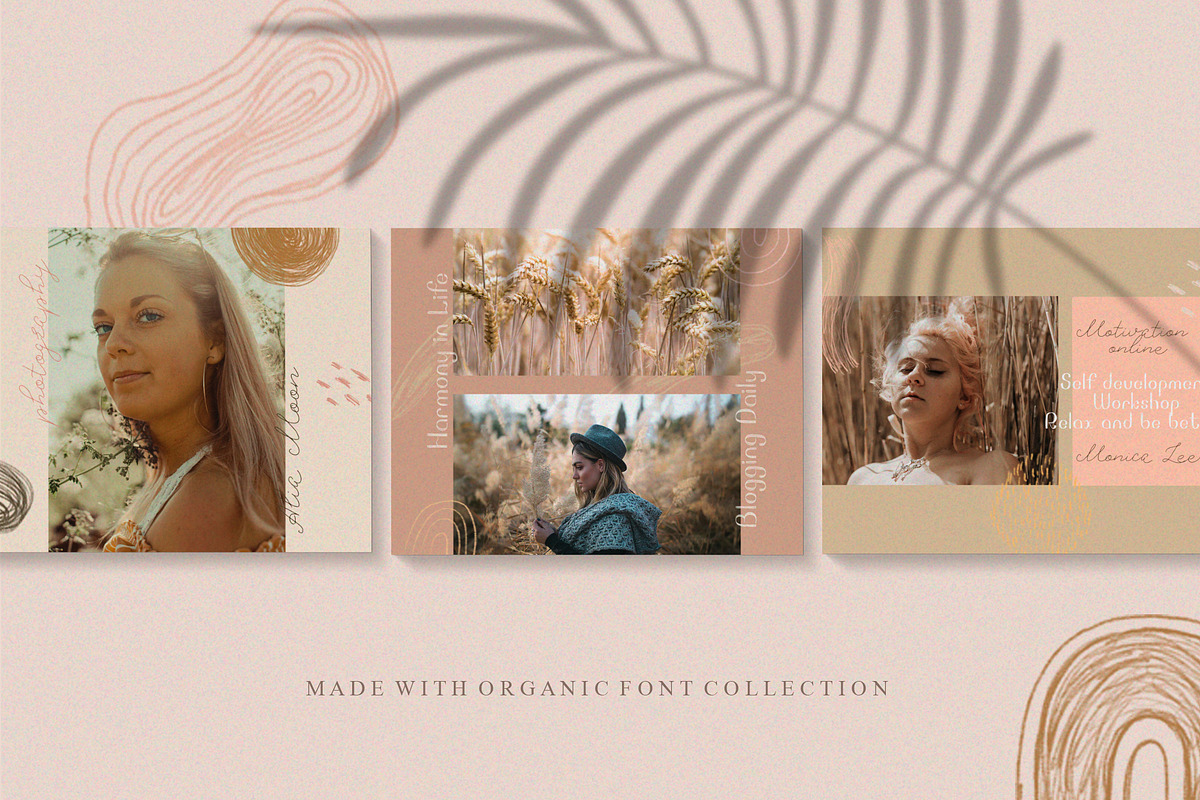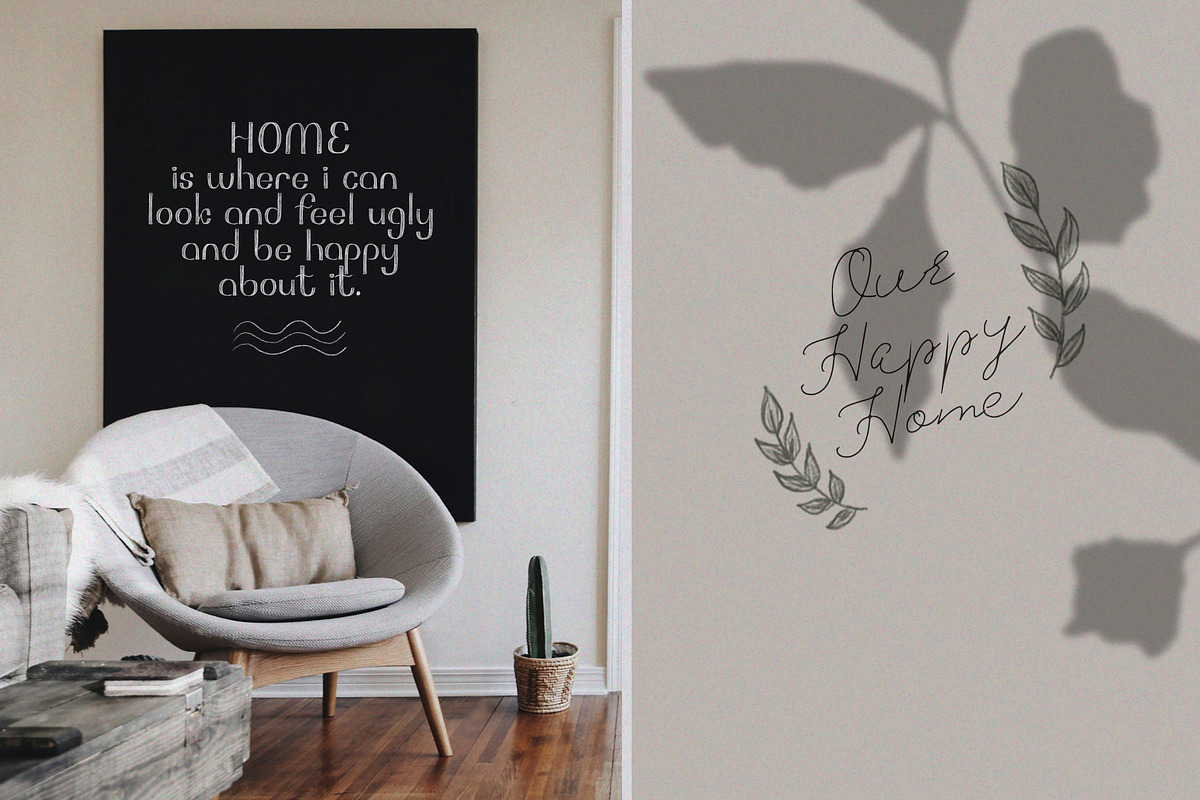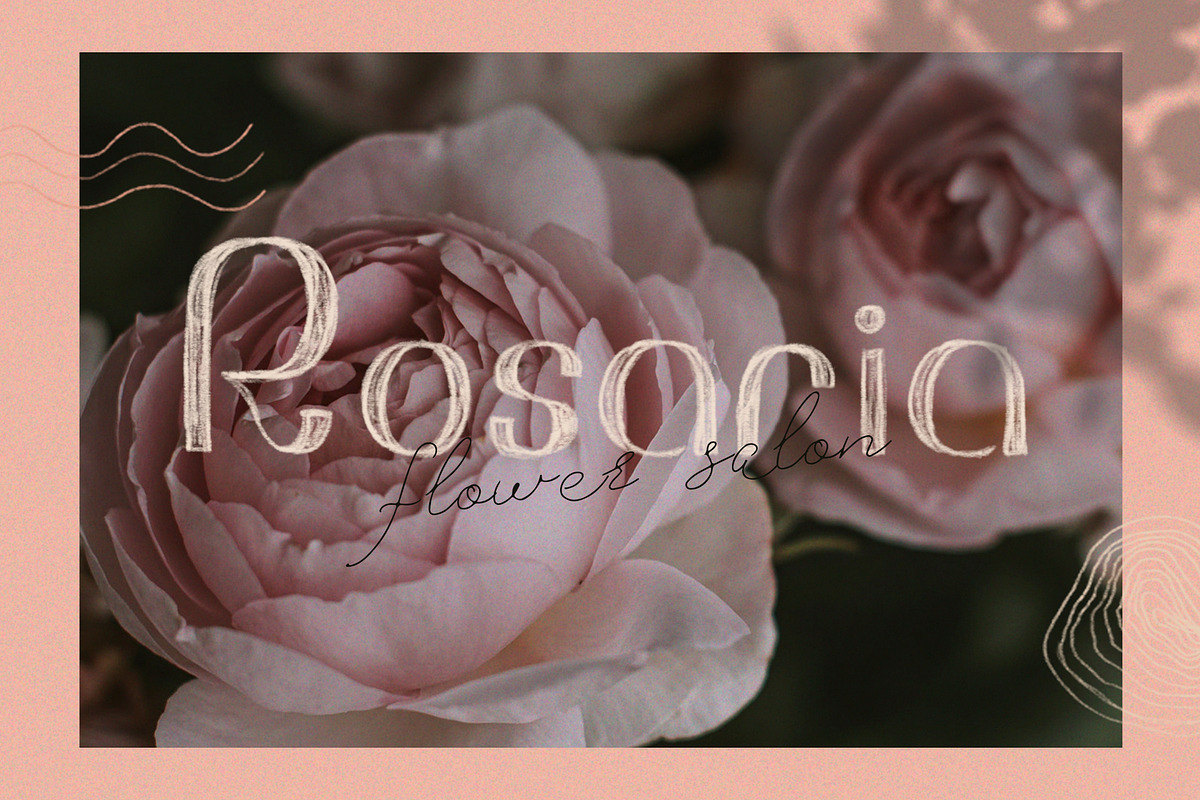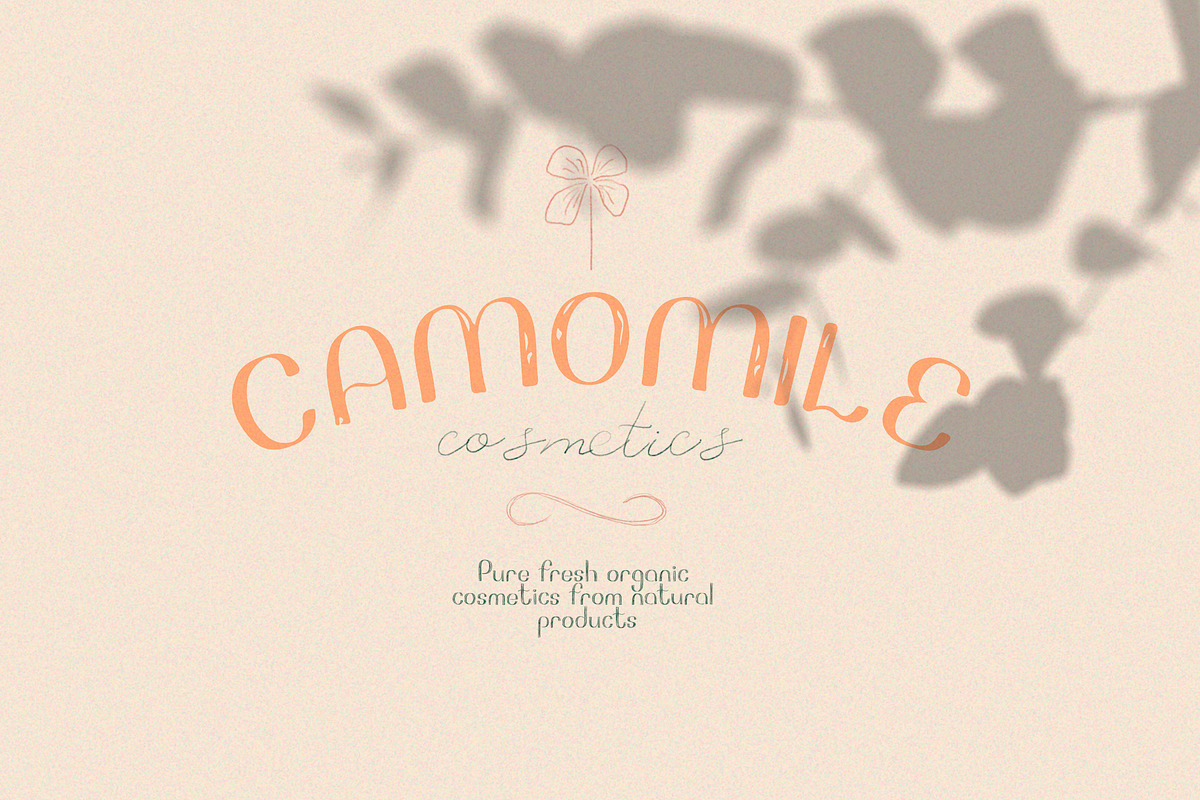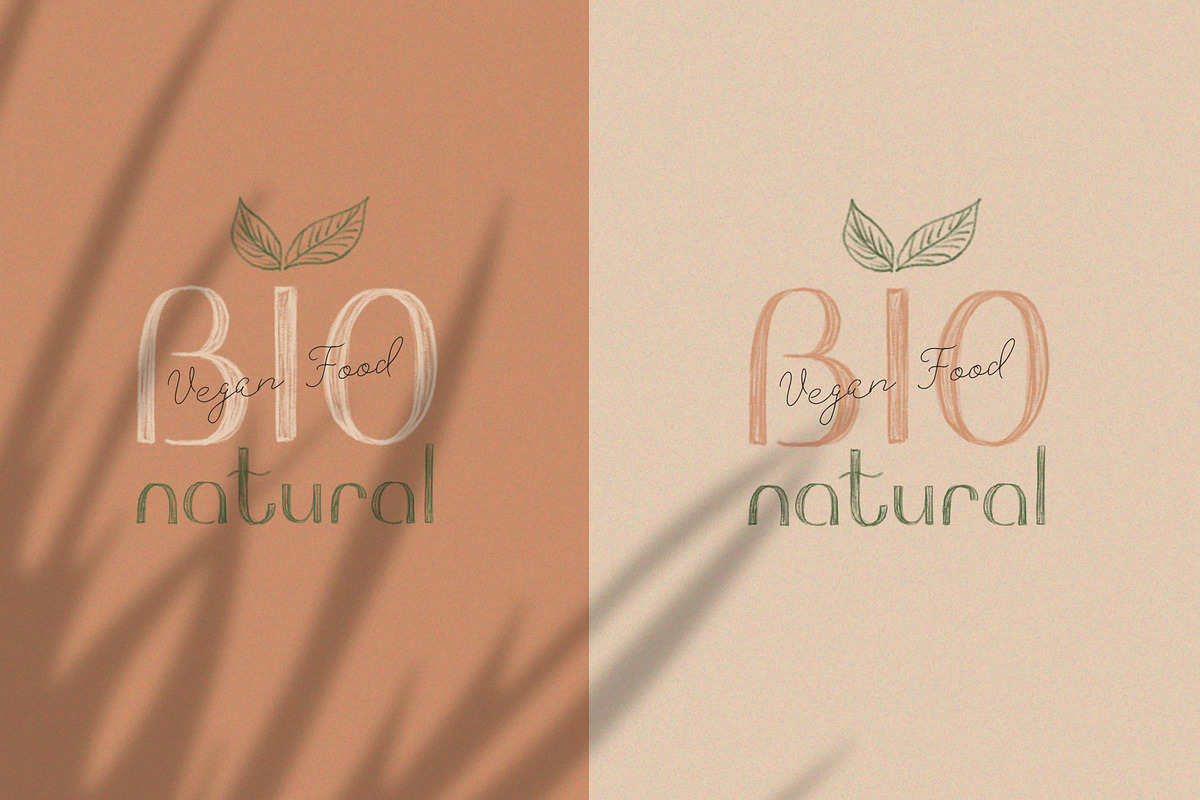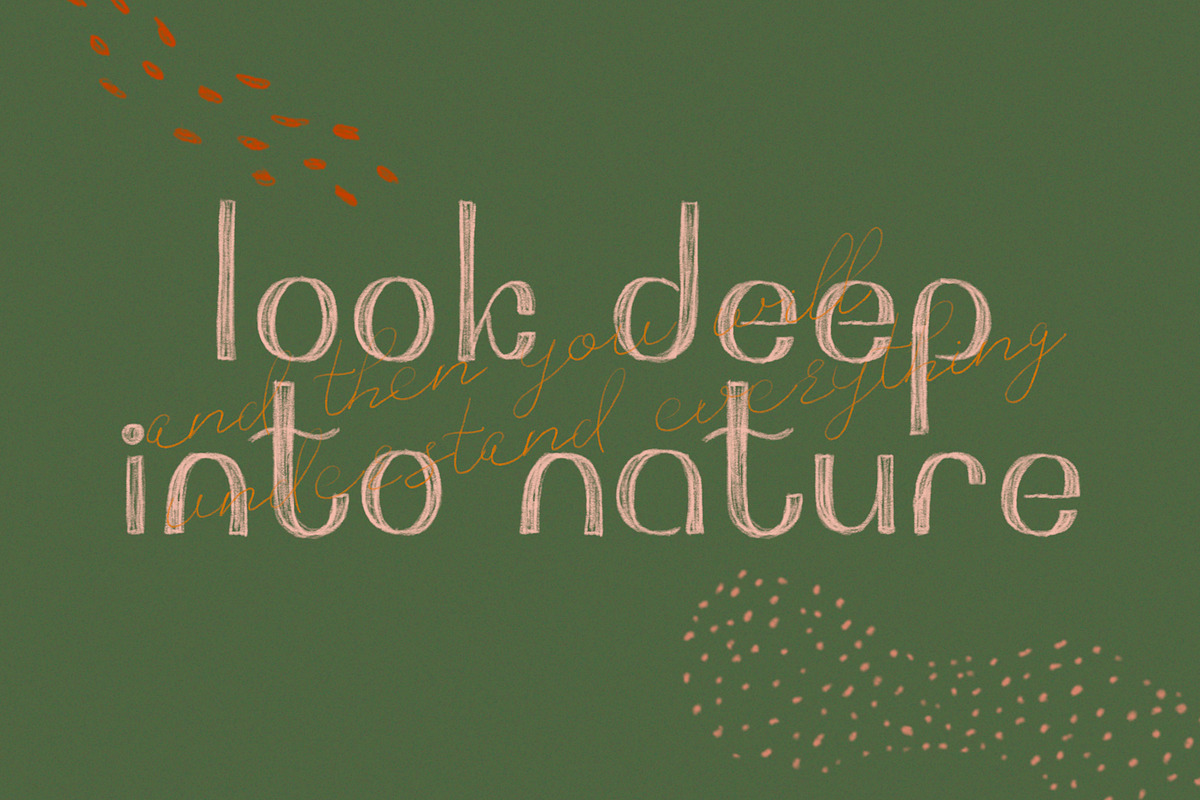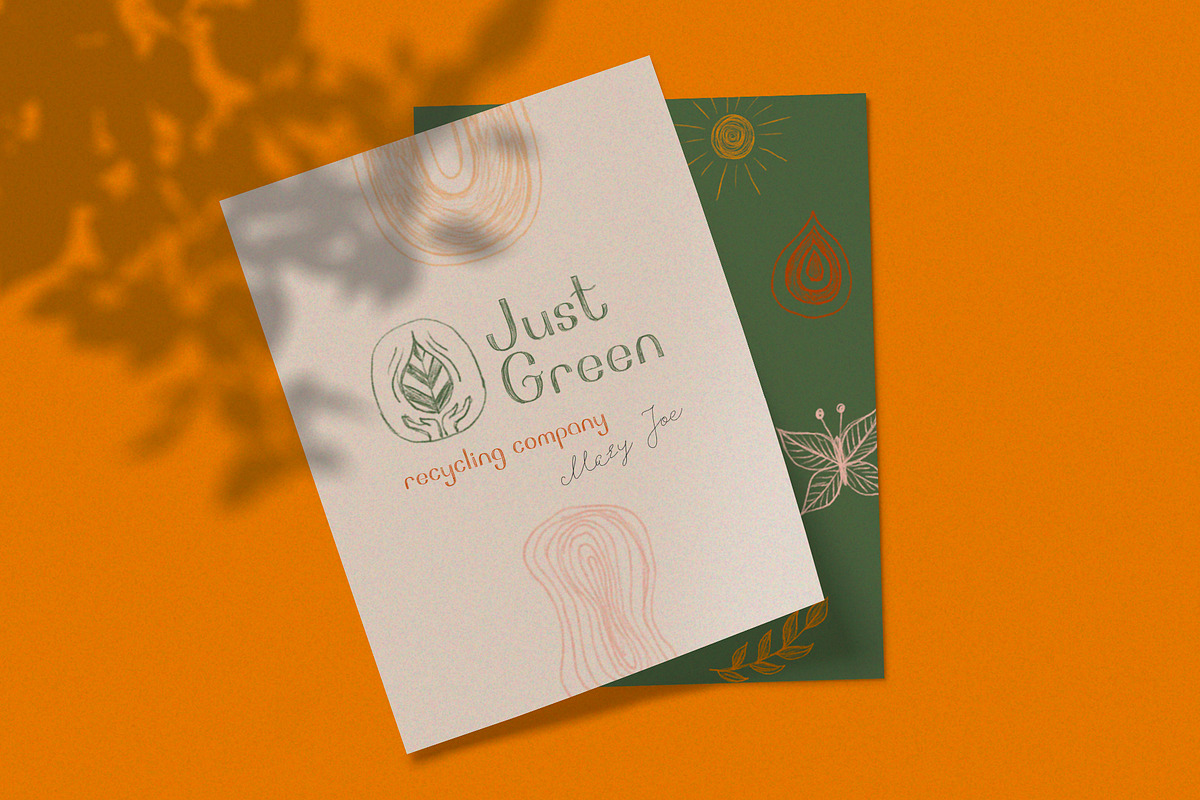
Organic font collection
Summer special offer! Organic font collection includes Sans Serif SVG font (pencil or marker textured), Sans Serif regular vector, SVG script font and regular script font. Also 10 pre made logo templates and 50 hand drawn extras are included. Awesome decision for your branding, design and projects! This pack looks classy and professional at the same time.
Organic font collection works great in mood boards, posters, logos, headlines, packaging, advertising, branding and so much more. Just create the best romantic, urban or rustic, elegant or dynamic designs.
Organic SVG font has a real hand-painted pencil look, ultra-textured and transparent letters with high-definition brush textures built in to the font as a transparency.
Organic font has uppercase and lowercase letters, numbers & basic punctuation, alternates and ligarures, multilingual support in Sans Serif Organic font (French, German, Italian, Norwegian, Portuguese, Spanish, Swedish,Swiss German). Organic script font currently only English supports, but the following accents are included: ¨ ´ € ` ˚ ¸